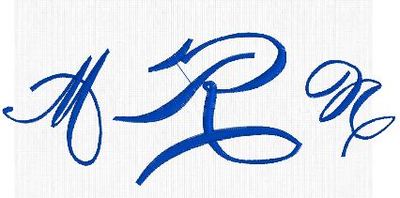
I have been searching for the Burque font. Having no luck in finding that to be embroidered. It is for a wedding and all I need are three letters for a monogram. Can anyone digitize this? And if so, can you please message me.
Hmmm, I tried to Google "Burque Font" and found nothing...the only thing it brought up was "Burgues Font"...would that be what you are looking for?
I noticed the Burgues font can be downloaded free from one site and from another an extended version costs just under €100, but that offers the most beautiful flourishes. Expensive for just 3 letters. Both are open type, which does not always work well in every software.
I noticed in one of your questions that you own 3D software. Have you got QuickFont as part of it? in that case have a look at the Burgues free font -see link. you can use their preview option and type in the desired letters. If they are what you are looking for download the font and use QF to convert it to an embroidery font. Let us know how that works for you.
This is what it would look like.